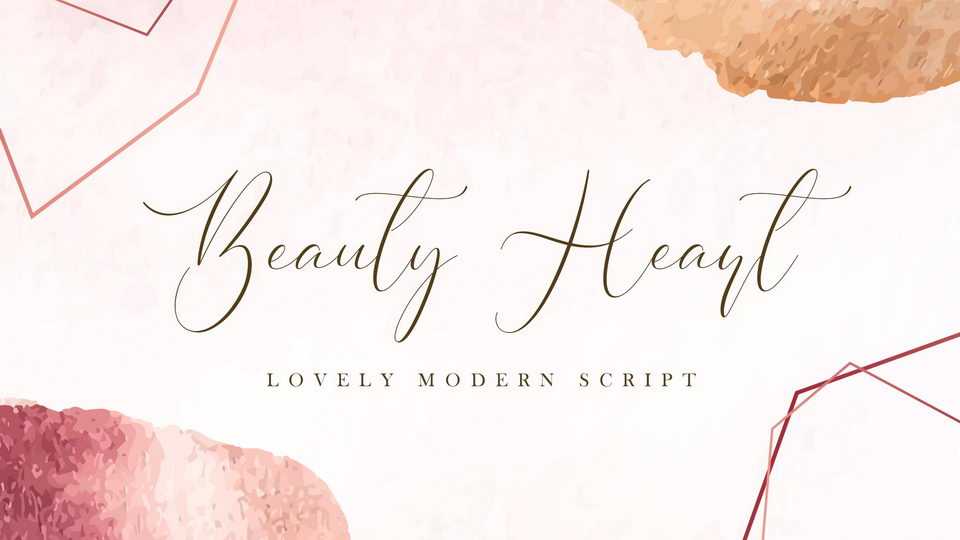
Download Beauty Heart font, a beautiful calligraphy script with lovely style. Beauty Heart is perfect for fashion brand, wedding invitation, business card, logo brand, signature, and also for calligraphy purpose.